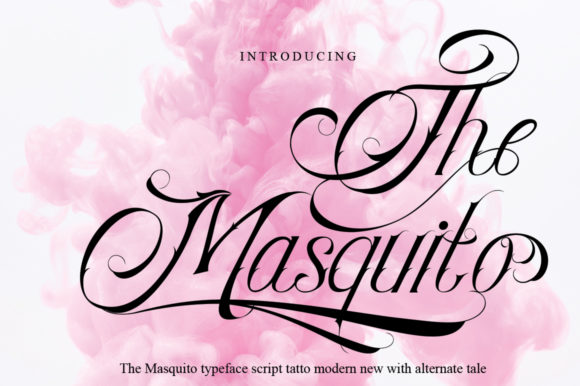
The Masquito Font
Behold, the Masquito Font, a mesmerizing script font that will unleash your creativity and captivate your audience. Its exquisite swashes and elegant ligatures dance harmoniously, adding a touch of sophistication to every design. With its versatile charm, this font effortlessly adapts to a myriad of projects, transforming ordinary words into captivating masterpieces.
Journey into a world of boundless possibilities, where the Masquito Font weaves its enchanting spell. Whether you're crafting breathtaking logos, designing eye-catching social media posts, or creating heartfelt invitations, this font will elevate your designs to new heights. Its fluid strokes and graceful curves evoke a sense of timeless elegance, leaving an unforgettable impression on all who behold it.
Let your imagination soar as you explore the boundless potential of the Masquito Font. Its meticulously crafted characters possess a unique personality, adding a touch of magic to every project. Dive into a world of endless possibilities, where the Masquito Font becomes your trusted companion, transforming your designs into works of art. Unleash your creativity and let this captivating font take you on an extraordinary journey of self-expression.